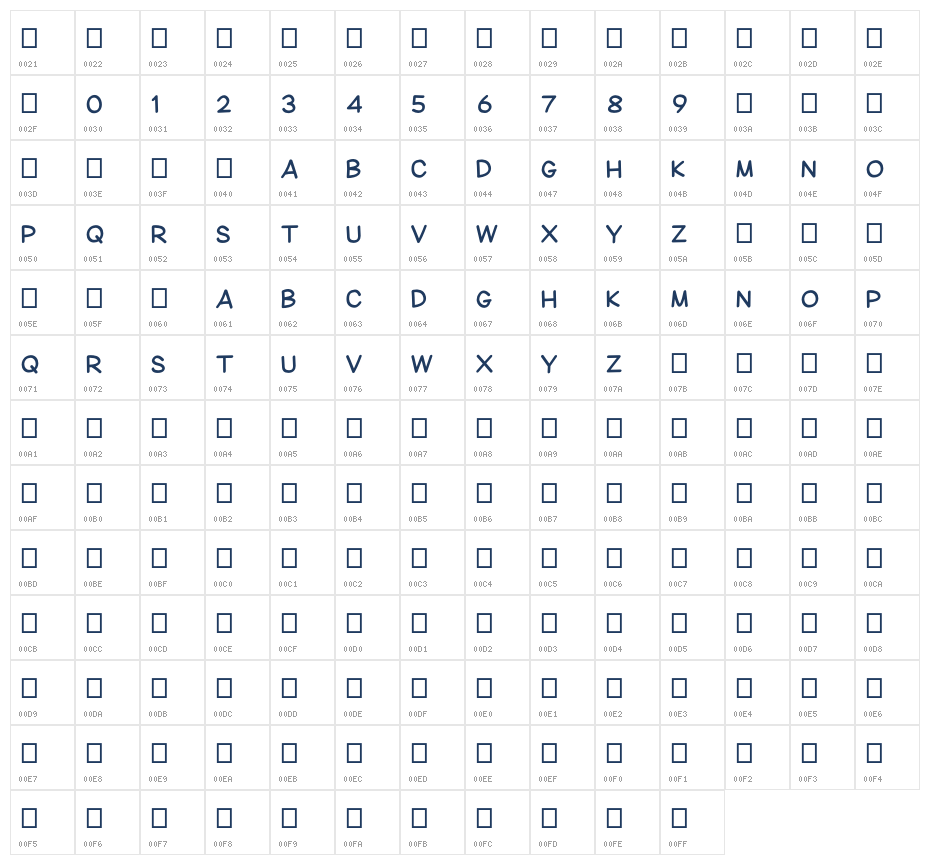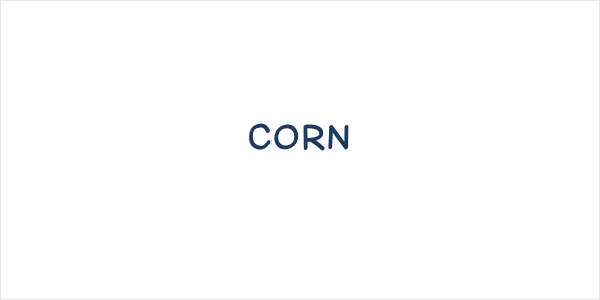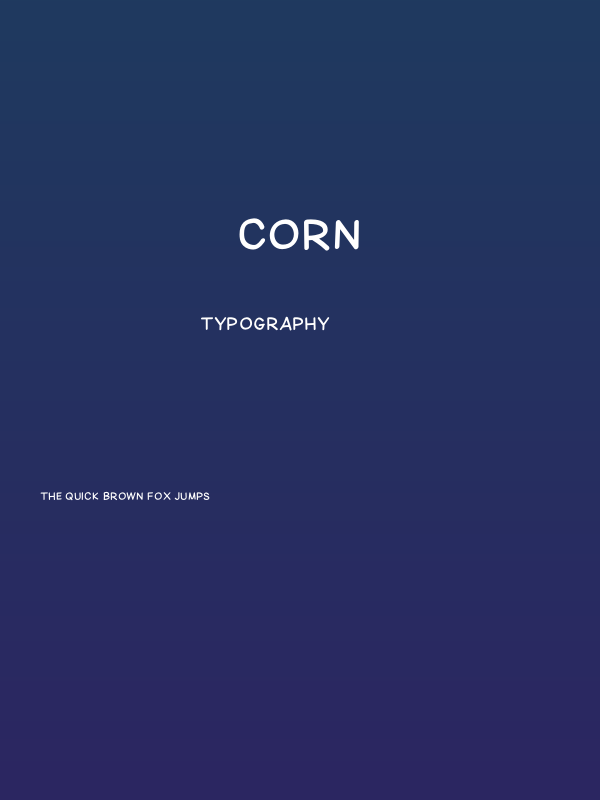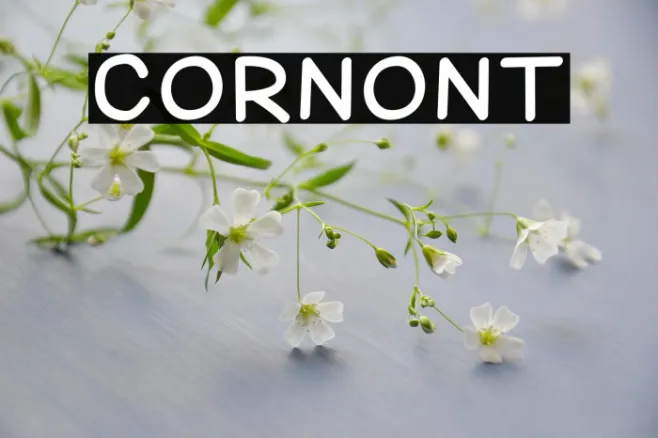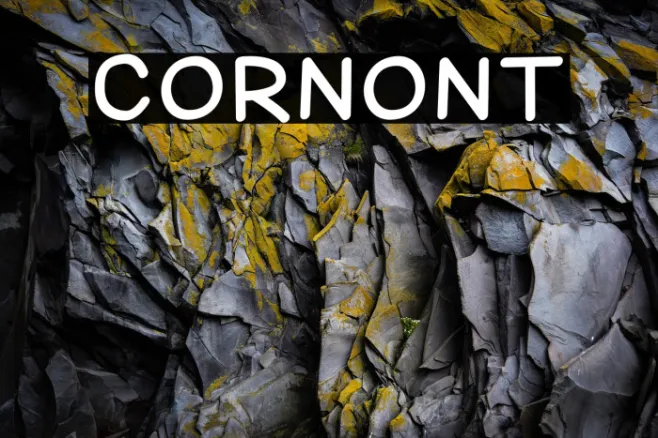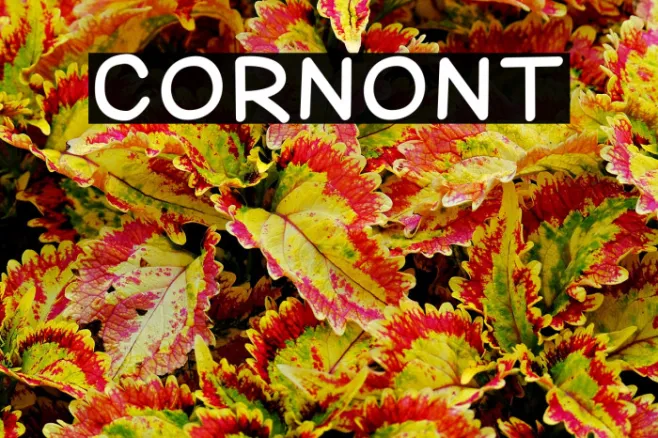
Corn Font
Corn Description
A playful, rounded sans-serif font with a casual and friendly appearance, featuring slightly irregular letter shapes and a handwritten style.
| Overall Style | Casual, Friendly, Handwritten |
| Use Case | Headlines, Body text, Logos, Children's materials |